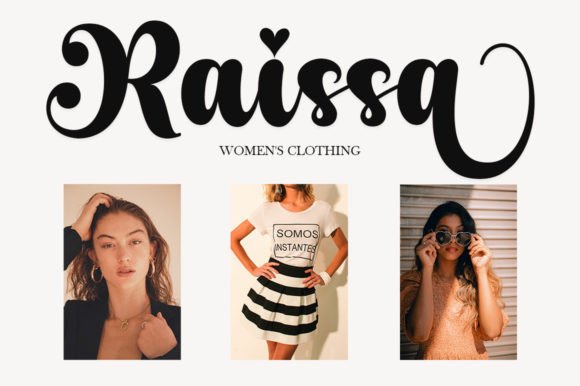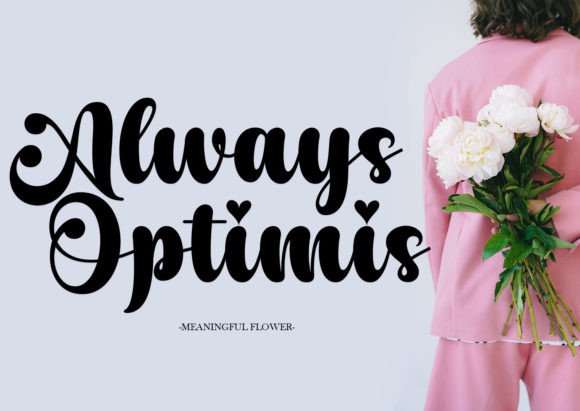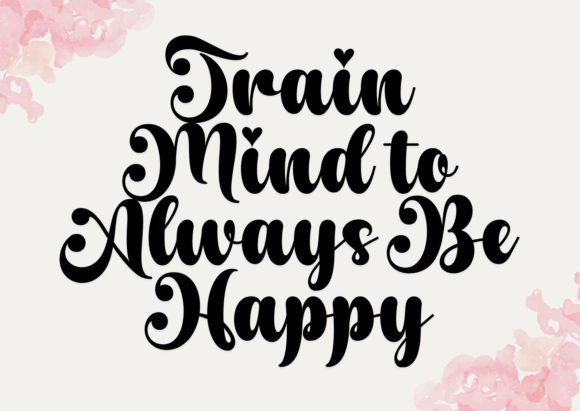
Introduction to Simple Good Font
Have you ever stared at a blank page, waiting for that perfect spark to ignite your creative project? The blank canvas stares back, taunting you with possibilities. But what if you had a secret tool to unlock your imagination and turn your ideas into breathtaking works of art? Enter the Simple Good Font, a game-changing design resource that’s about to revolutionize the way you approach your creative endeavors.
With its warm, romantic, and jolly vibe, this versatile handwritten font is the perfect companion for any design project. Whether you’re crafting a wedding invitation, a children’s book, or a social media graphic, the Simple Good Font is sure to bring a touch of elegance and whimsy to your work. And the best part? It’s incredibly easy to use, thanks to its PUA encoding, which allows you to access all of its beautiful glyphs and swashes with just a few clicks.
Key Features of Simple Good Font
- High-quality design: Simple Good Font is crafted with precision to deliver a clean and modern look, making it perfect for creative projects.
- Simple yet elegant design: The font’s minimalistic design makes it an excellent choice for creative projects where simplicity is key.
Honest Review: Simple Good Font
As a designer, I’m always on the lookout for high-quality design resources that can elevate my creative projects. Recently, I stumbled upon the Simple Good Font, and I’m excited to share my honest review with you.
Limitations: ⚠️ While the Simple Good Font is a great resource, it’s not without its limitations. The font family is relatively small, with only a few weights and styles available. This may not be ideal for designers who need a wide range of options for their creative projects.
To get the most out of Simple Good Font, consider using it in conjunction with a transparent background. This will allow the font to be easily readable on any background. Additionally, consider using the font in combination with other high-quality design resources to create a cohesive and professional design.
Simple Good Font is a versatile font that can be used in a variety of creative projects, including logos, posters, and business cards. It is particularly well-suited for use in digital designs, where its high quality and readability make it an ideal choice.